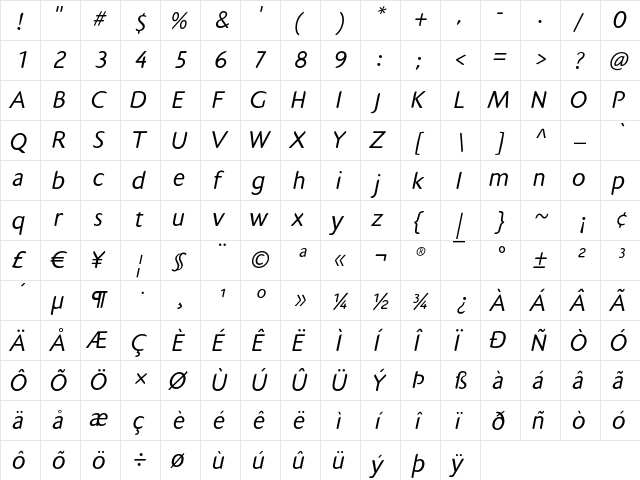
AiPaiNutaaq Italic
Design Context for AiPaiNutaaq Typeface
AiPaiNutaaq is a composed and adaptable typeface that performs quietly and consistently across a wide range of design contexts. Its italic angle brings a sense of urgency and motion to the letterforms.
Pro Tip: Use AiPaiNutaaq for emphasis, pull quotes, and subheadings where its slanted energy can add rhythm to the layout.